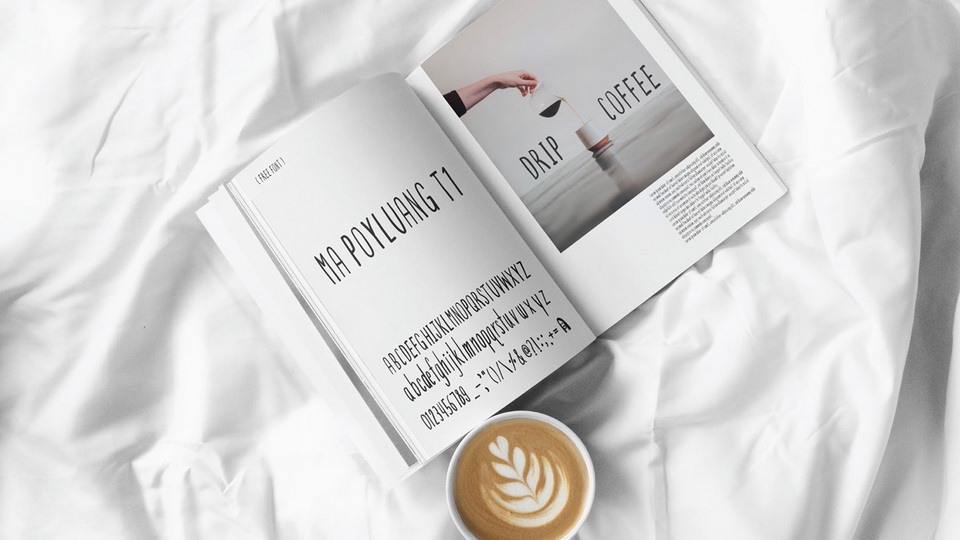
Feb 10, 2025Script & HandwrittenMa Poyluang T1 Font MA POYLUANG T1 is a casual handwriting typeface. The font is perfect for homemade, cozy, relax, natural, organic, coffee, bakery, cafe, craft mood and tone. Font DetailsDesigned by: Poyluang TantipisuitWebsiteLicense: Free for commercial use Download Ma Poyluang T1 FontFile size: 190.60 KBCreated: February 16, 2025Updated: February 16, 2025 Download Explore similar fonts Sweet Bounce Font Peanut Crystal Font Resulton Font Sunshine Surprise Font Ralley Empathy Font View Vacation Font Sweet Romance Font Malviro Font # Casual# Cute# Handwriting More fonts by Poyluang TantipisuitMa Reka Font